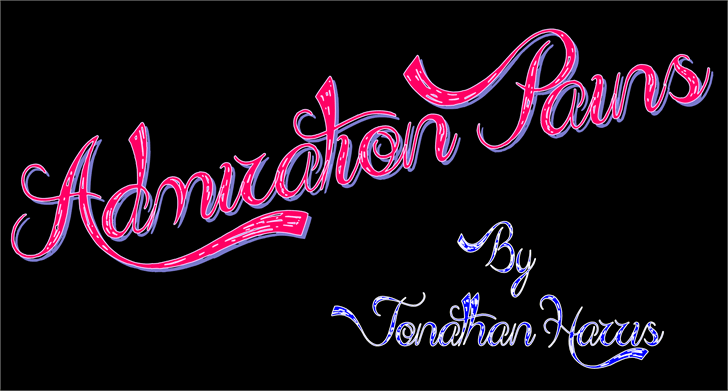
Free Admiration Pains Font
Introducing you to the absolutely beautiful free admiration pains font. Font Space has created this amazing and beautiful free font. This is absolutely cool font so you can easily make world-class designs.